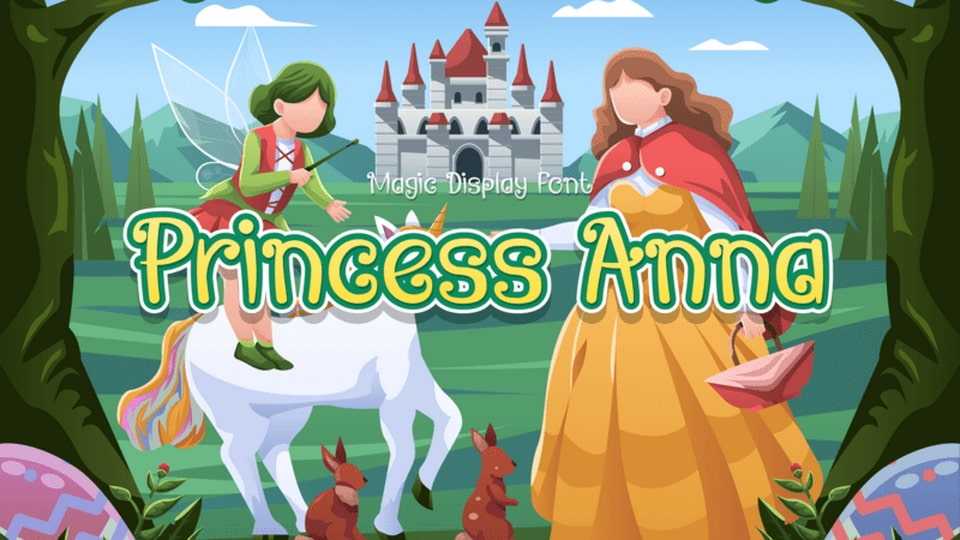
Download Princess Anna font, a magic display typeface. Its unique shape reminds us of the magical era of the prince and princess that rules the world.